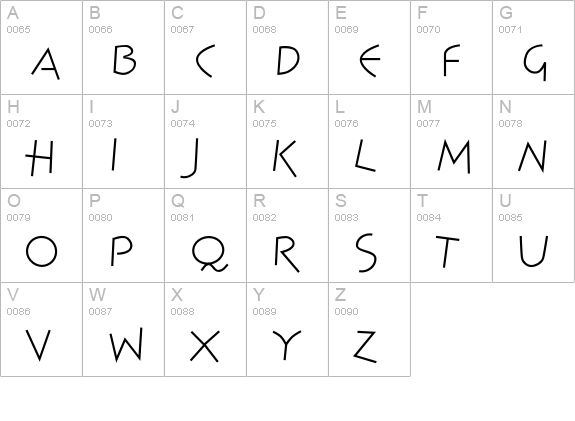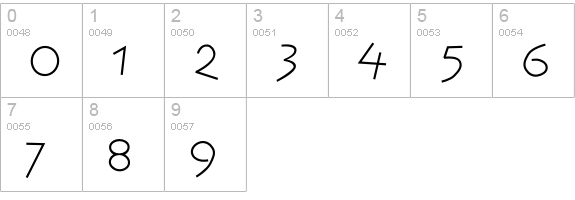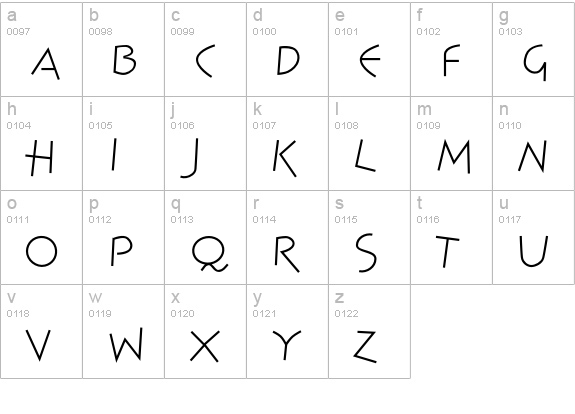
Spontan-Plain Font Details
Spontan-Plain, a font that radiates simplicity and elegance, is the perfect choice for those seeking a clean and modern look in their designs. With its minimalist design, this font effortlessly captures attention and enhances readability across various mediums. Its versatile nature makes it suitable for a wide range of projects, from websites and logos to print materials and advertising campaigns. One of the standout features of Spontan-Plain is its free availability. This font can be freely downloaded from FontsMarket.com, allowing designers, creatives, and enthusiasts to access its stunning aesthetic without any constraints. This accessibility ensures that anyone can incorporate this remarkable font into their projects, regardless of their budget or resources. The clean lines and balanced proportions of Spontan-Plain create a harmonious visual experience, making it a popular choice for corporate branding and professional settings. Its timeless appeal and contemporary vibe blend seamlessly, making it a font that can withstand the test of time. Whether you're looking to add a touch of sophistication to your website or create eye-catching signage, Spontan-Plain is the perfect companion. Its simplicity and versatility make it an ideal choice for designers who value both functionality and aesthetics. Download Spontan-Plain for free at FontsMarket.com and bring a touch of elegance to your next design project.